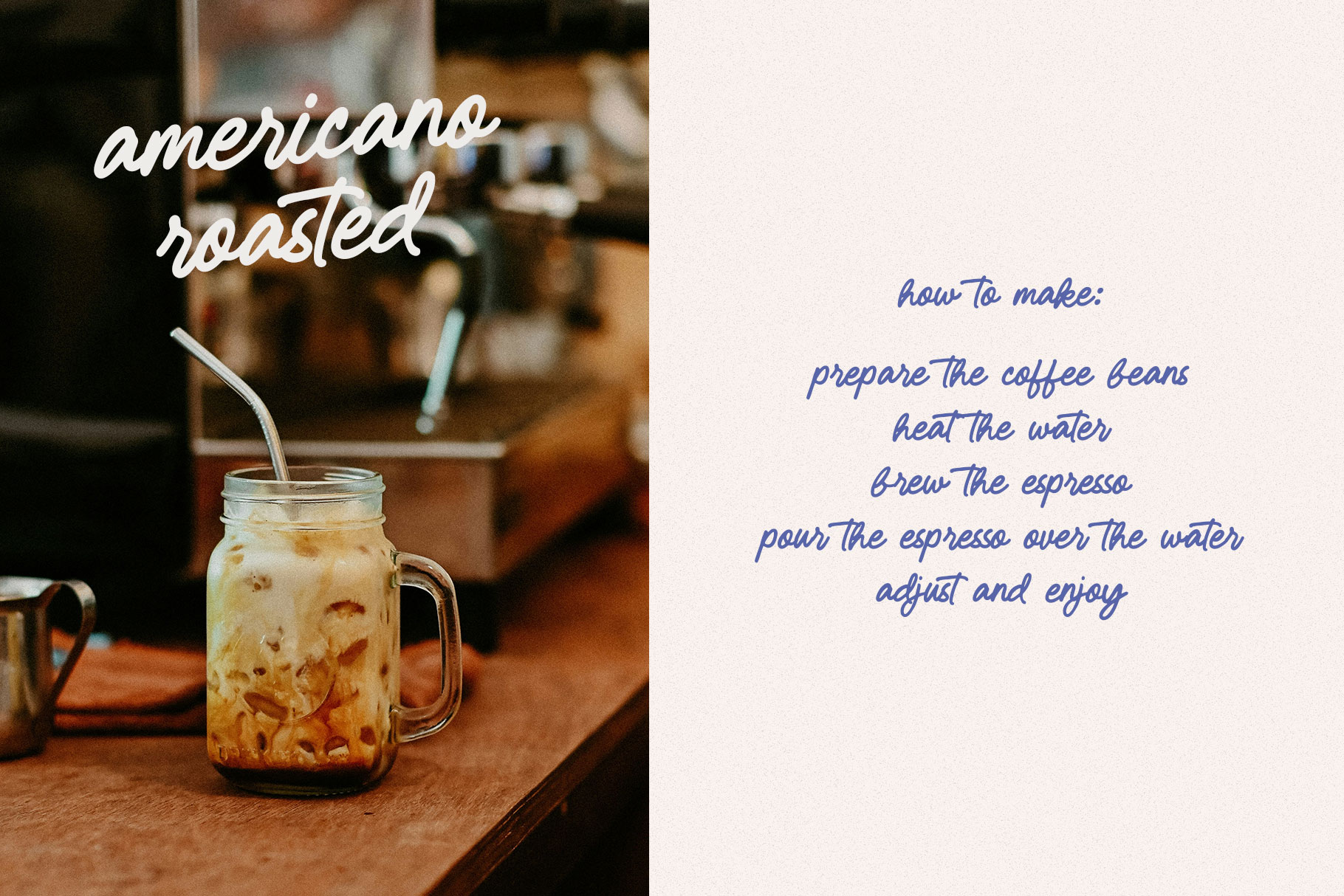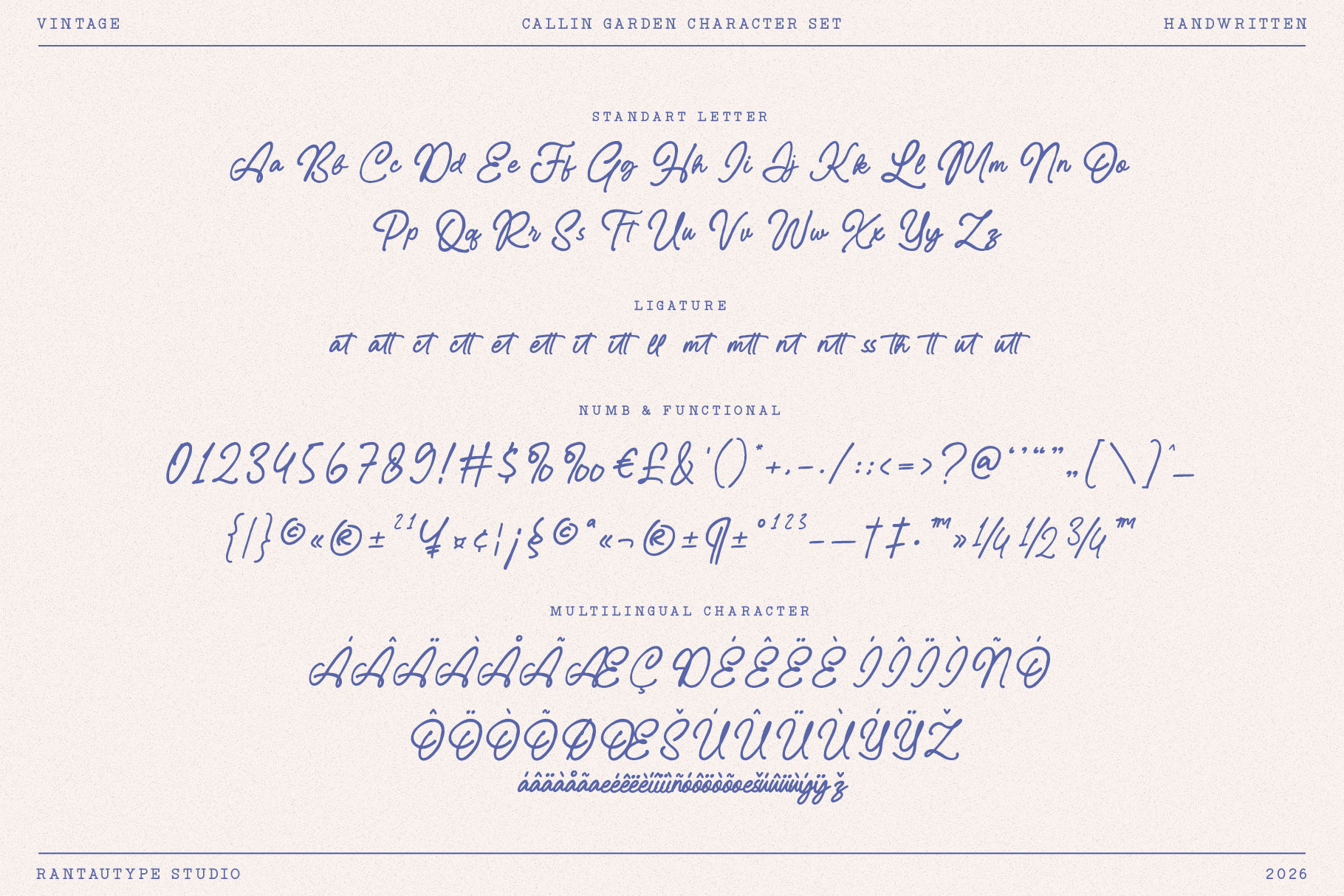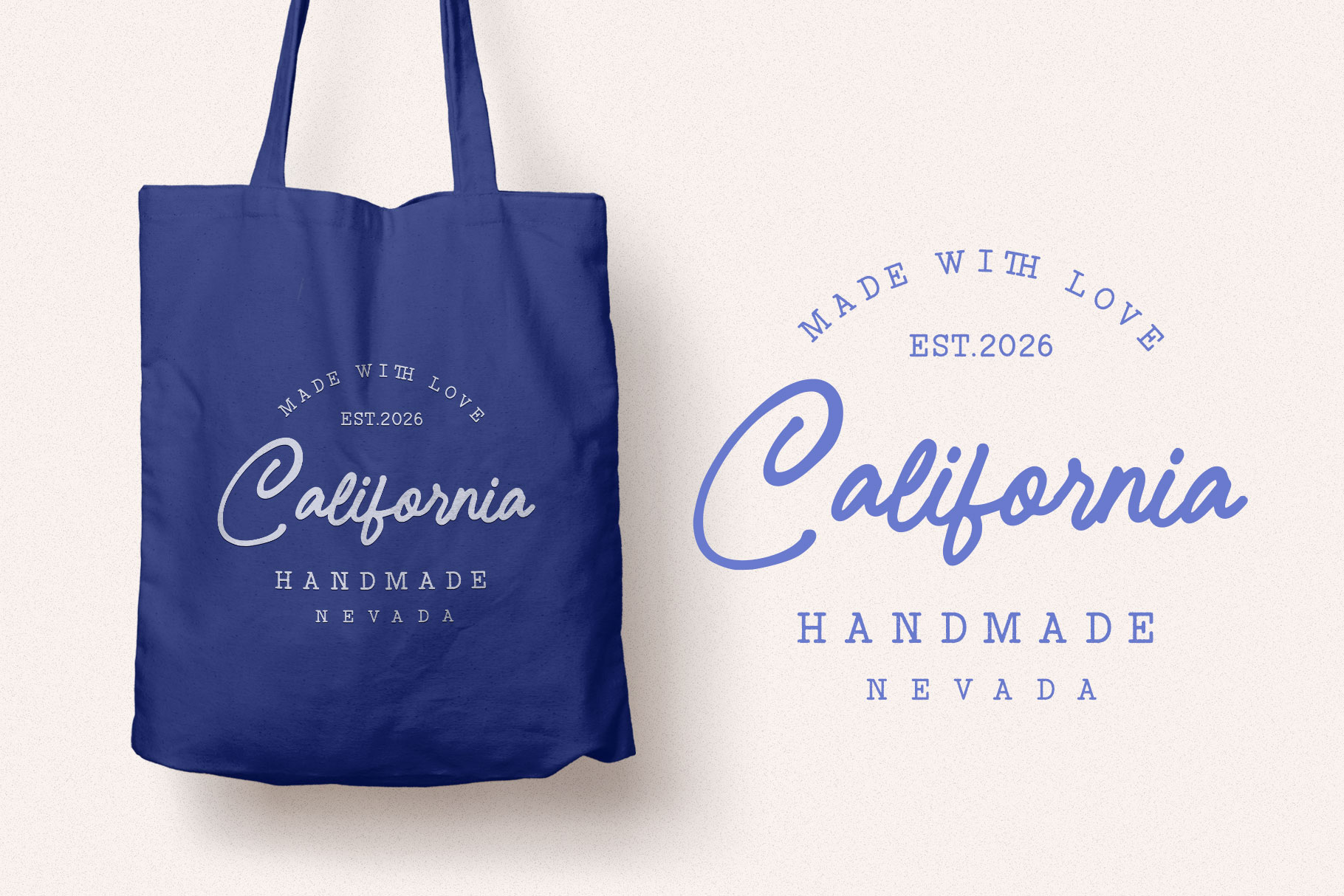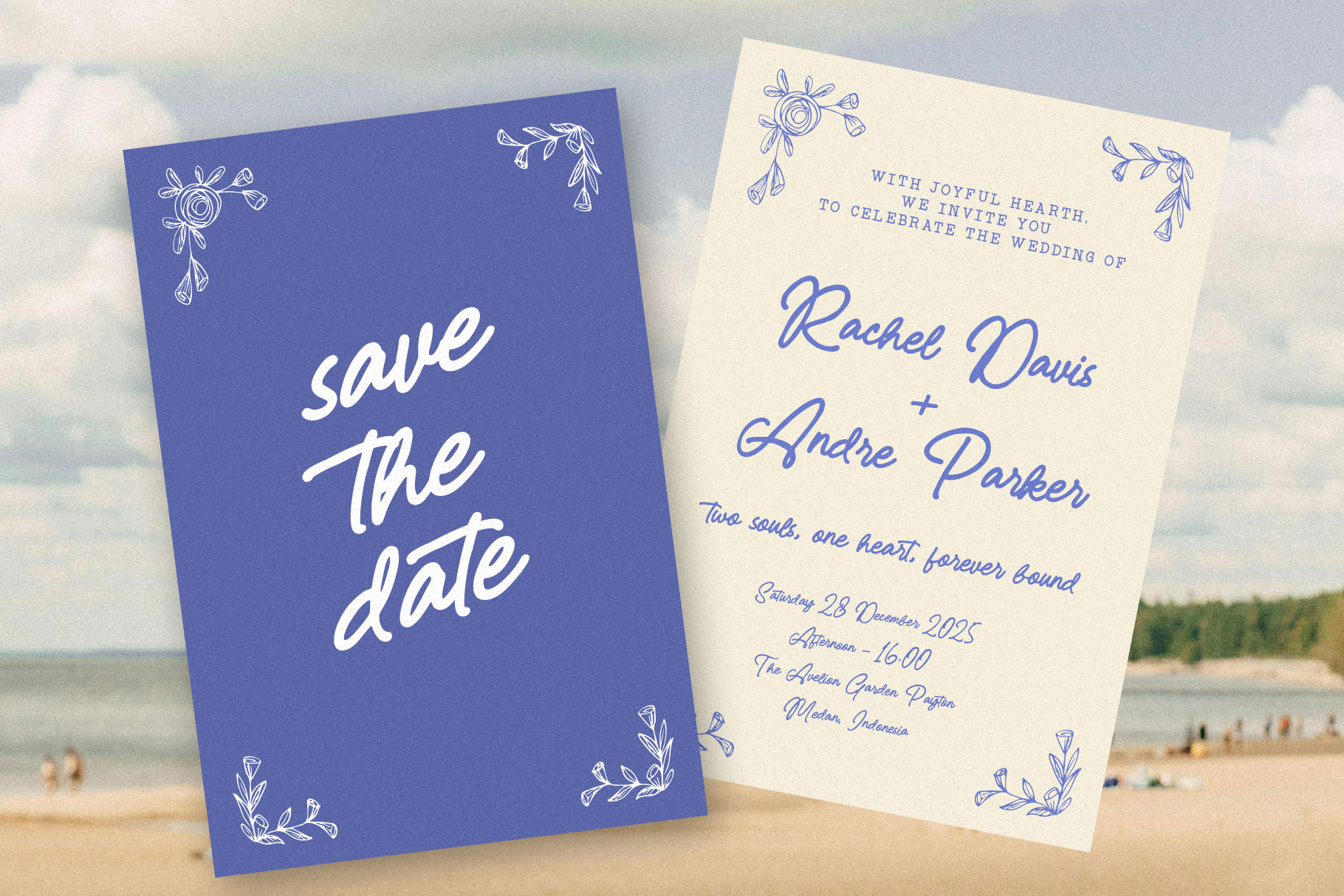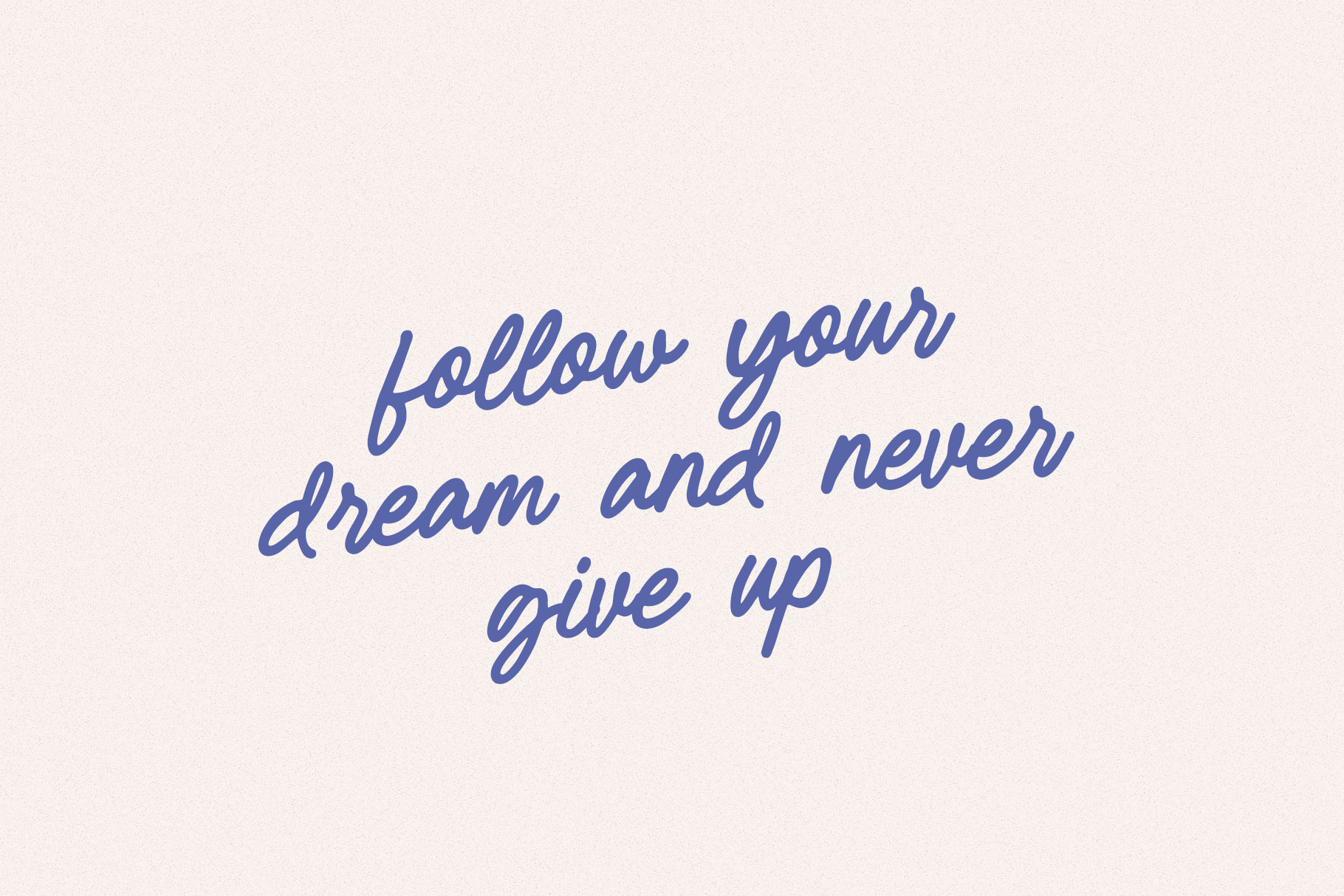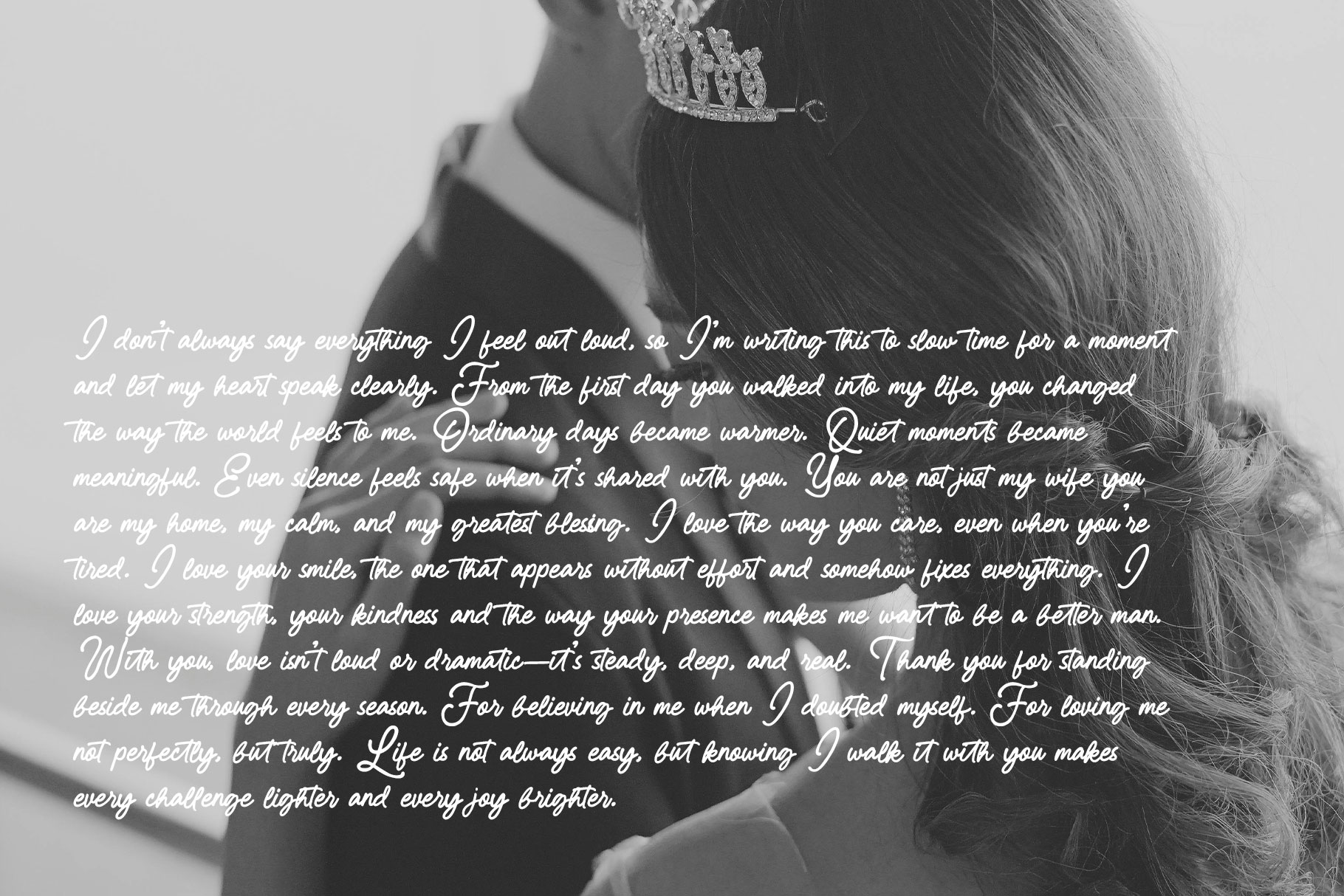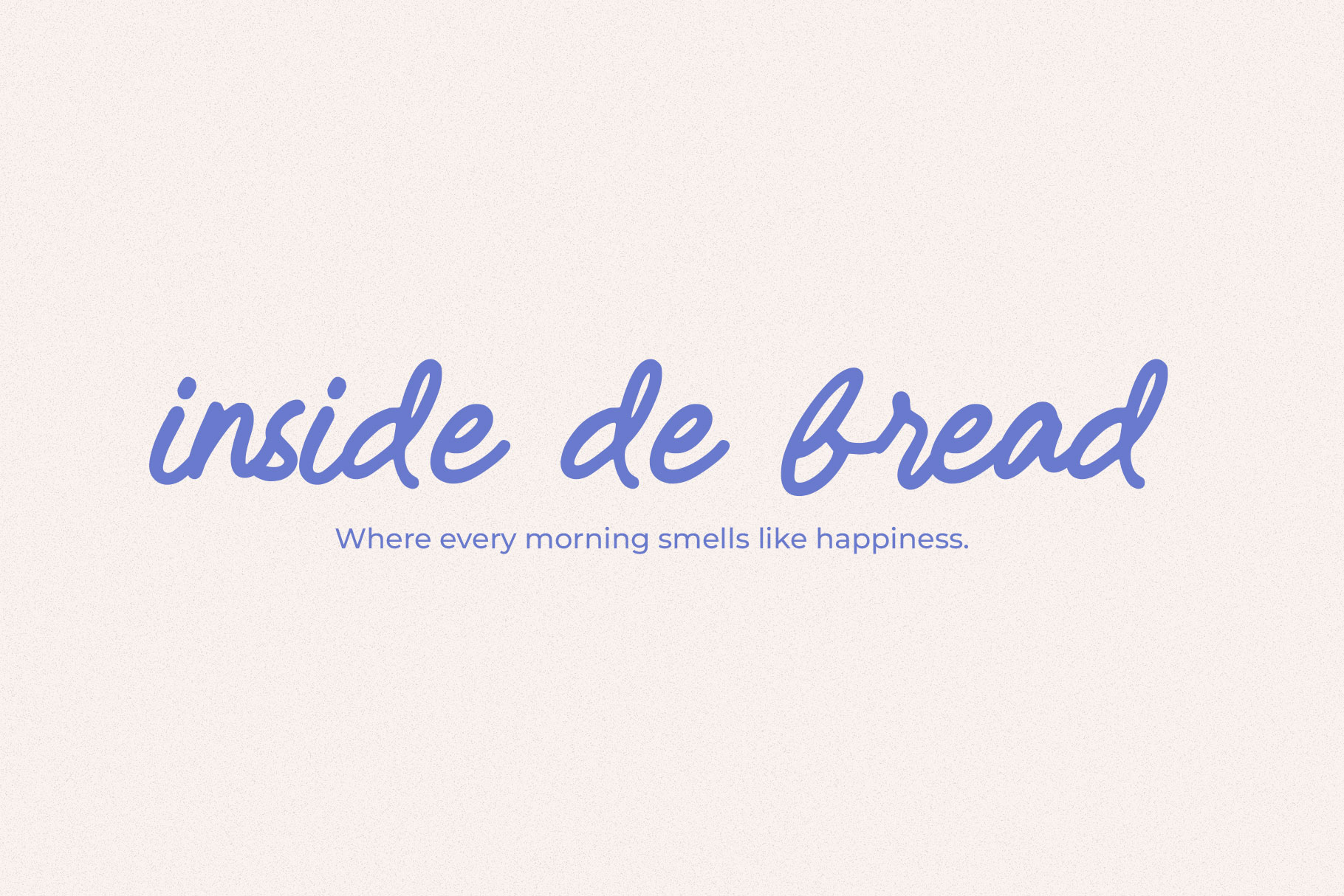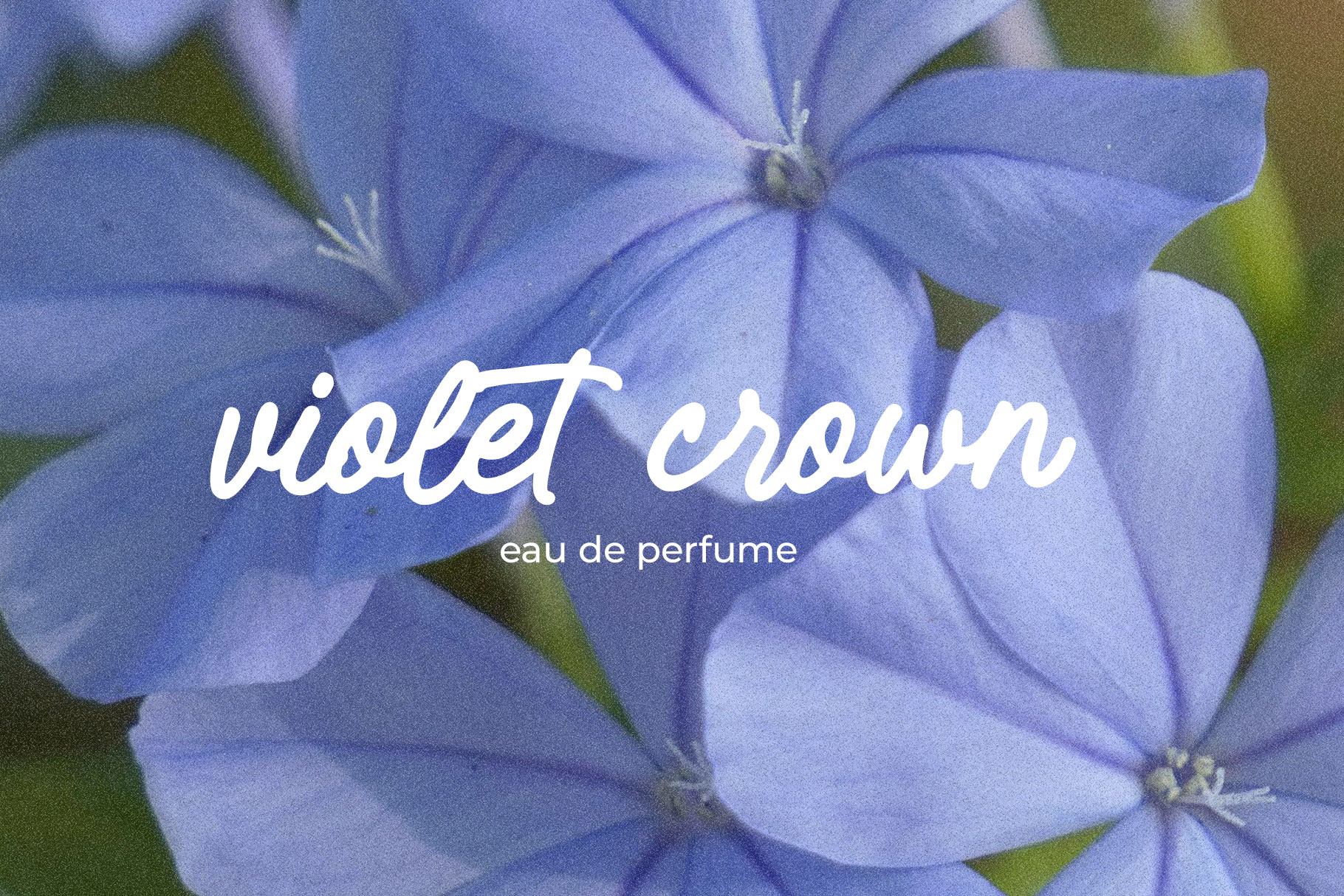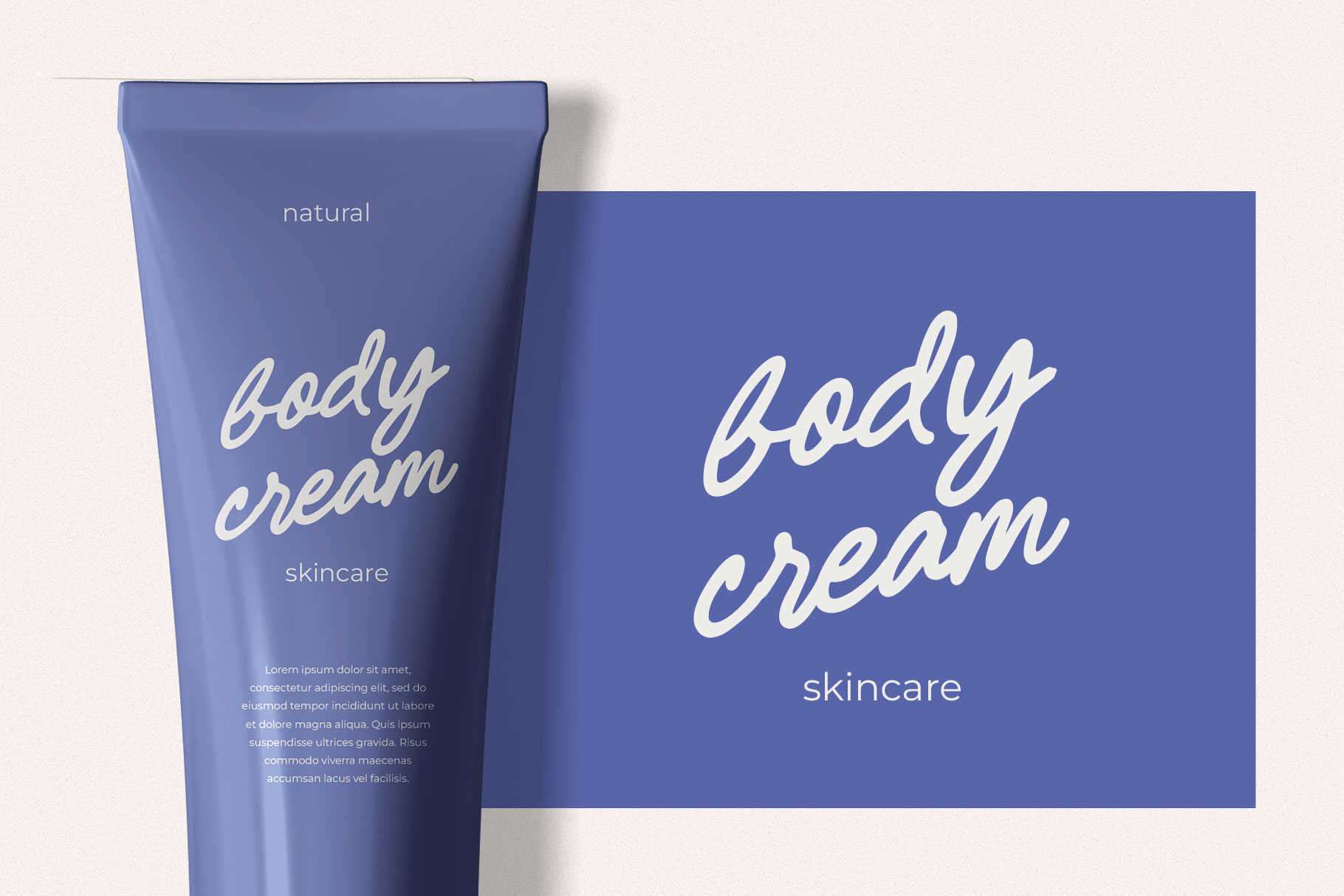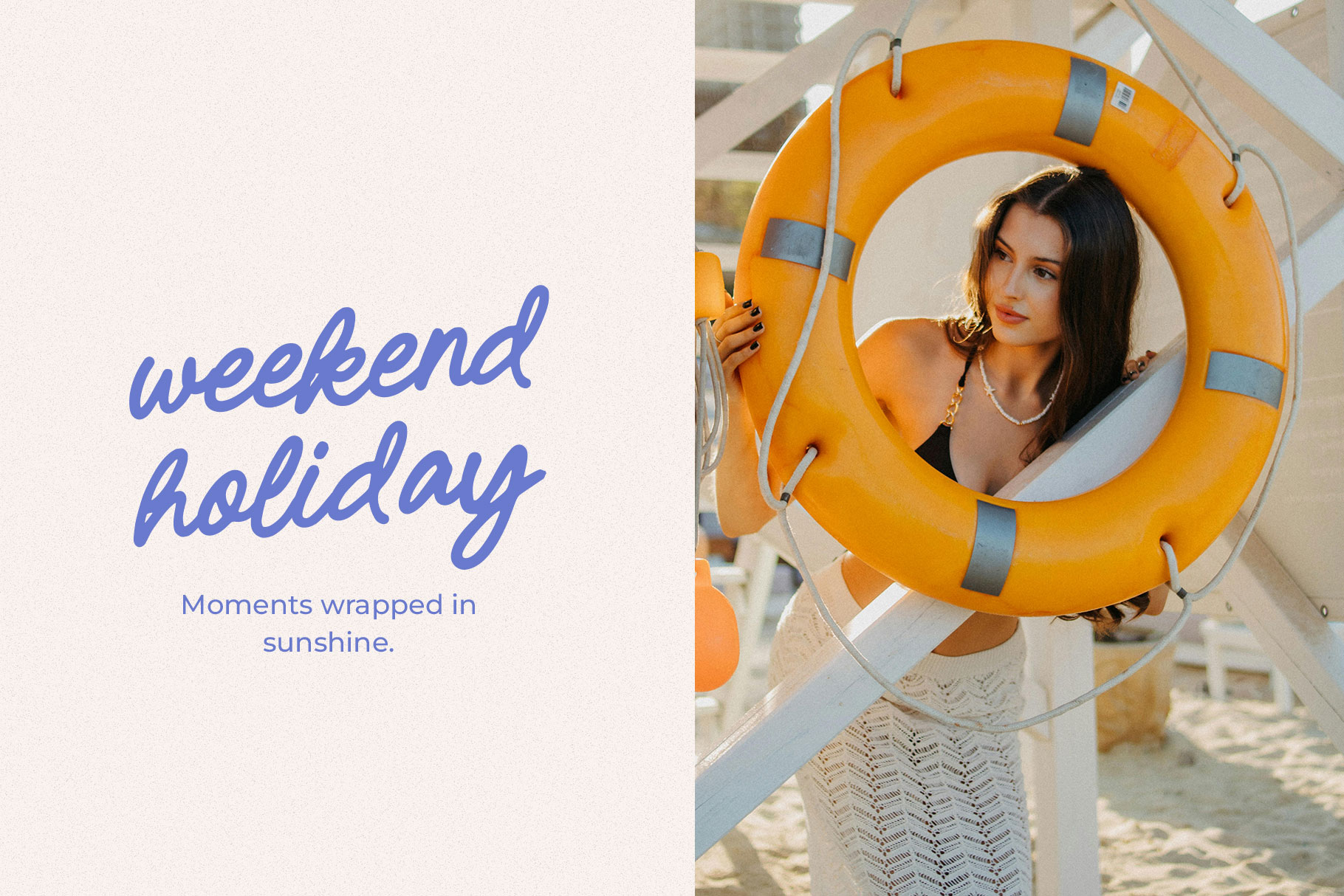
Callin Garden Vintage Handwritten Font
Callin Garden is vintage handwritten font with natural flow. Callin Garden is a perfectly choice for any creative endeavor, creating, modern, lifestyle design such as logotype, title, cover, branding, invitations, wedding designs, display and magazine, social media posts, advertisements, printed quotes, product packaging, corporate brand, product designs, labels, photography, watermarks, special events and any other project with vintage touch.